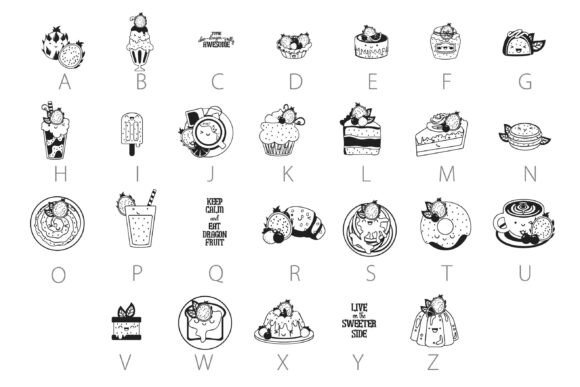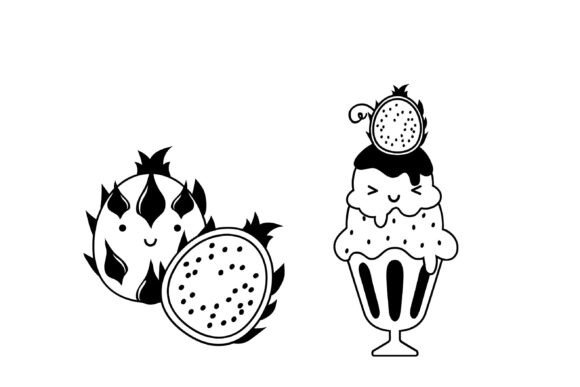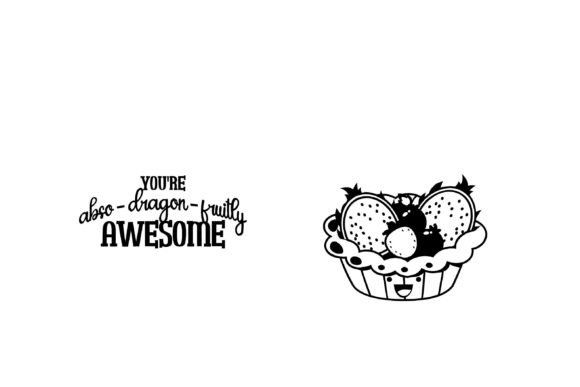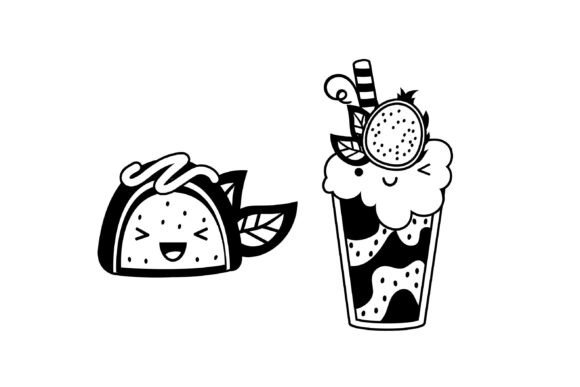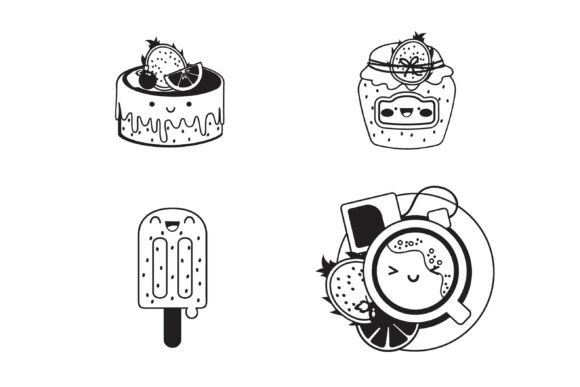
Introduction to Dragon Fruit Dingbats Font
Have you ever found yourself scrolling through a design project, struggling to find the perfect visual element to tie everything together? That’s when I stumbled upon the vibrant world of the Dragon Fruit Dingbats Font. As a designer, I’m always on the lookout for unique and high-quality design resources to elevate my creative projects. And let me tell you, this font has been a game-changer.
With its wide-eyed character designs and “sweet-tropical” soul, the Dragon Fruit Dingbats Font is a must-have for any design enthusiast. Whether you’re working on a project for a boutique juice bar, an independent bakery, or a playful children’s stationery design, this font is sure to bring a touch of whimsy and fun to your work. Plus, with a transparent background, it’s easy to incorporate into any design.
Key Features of Dragon Fruit Dingbats Font
- High-quality design resource ideal for creative projects, including graphic design, digital art, and print media.
- Features a unique, whimsical design style with a transparent background, allowing for easy layering and customization.
- Includes a range of decorative elements, including icons, symbols, and patterns, perfect for adding visual interest to designs.
Honest Review: Dragon Fruit Dingbats Font
- ✨ High-quality design with intricate details, making it perfect for digital art and graphics.
- ✨ Transparent background, allowing for seamless integration with other design elements.
- ✨ Suitable for a wide range of creative projects, from illustrations to advertisements.
- ⚠️ Limited character set, which may not be suitable for extensive text-based projects.
- ⚠️ May not be as readable on smaller scales due to its intricate design.
Overall, I’m quite impressed with the Dragon Fruit Dingbats Font. It’s a great addition to any designer’s toolkit, especially for those working on creative projects that require a touch of whimsy. While it may have some limitations, its unique design and free download make it a valuable resource worth exploring.
Tips for Getting the Most Out of the Dragon Fruit Dingbats Font
One of the best things about the Dragon Fruit Dingbats Font is its high-quality design and transparent background, making it a great resource for designers. To get the most out of it, use it in creative projects where you want to add a touch of whimsy and personality. You can also use it in combination with other fonts to create a unique and eye-catching design.
The Dragon Fruit Dingbats Font is perfect for use in greeting cards, invitations, and other social media graphics. Its unique characters and symbols make it a great resource for designers who want to add a touch of fun and personality to their designs.